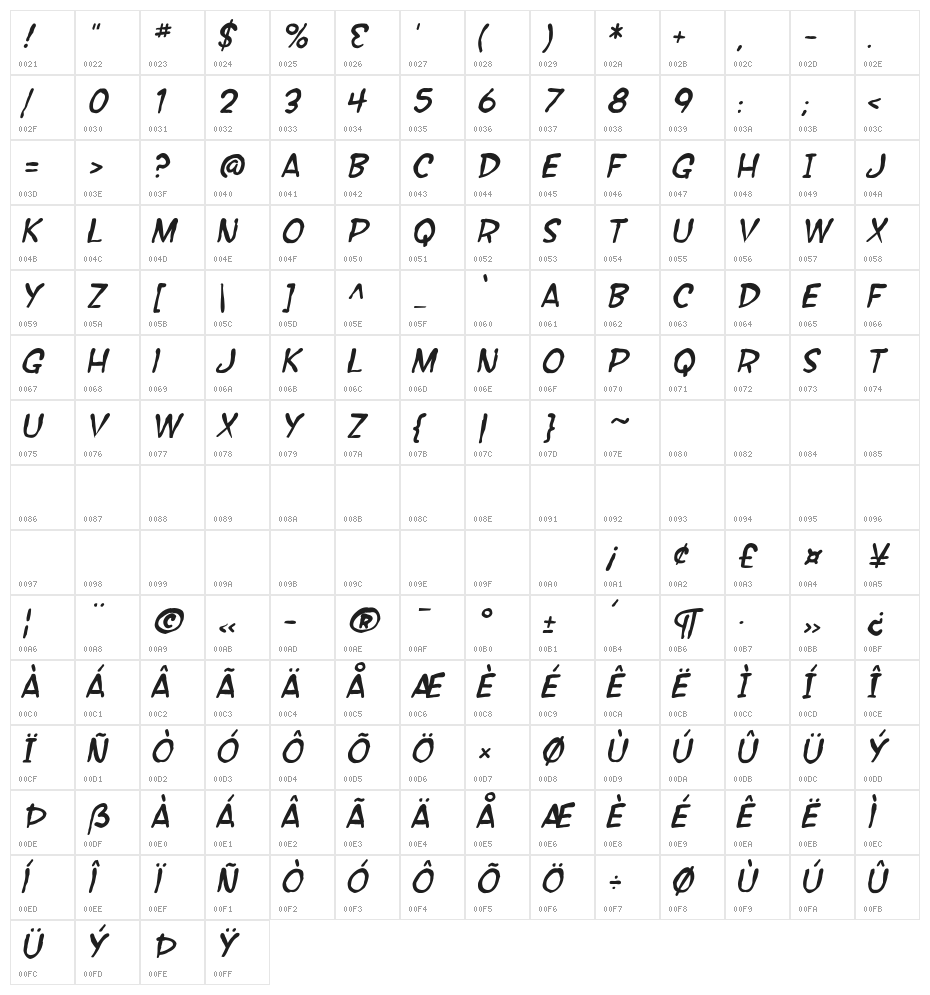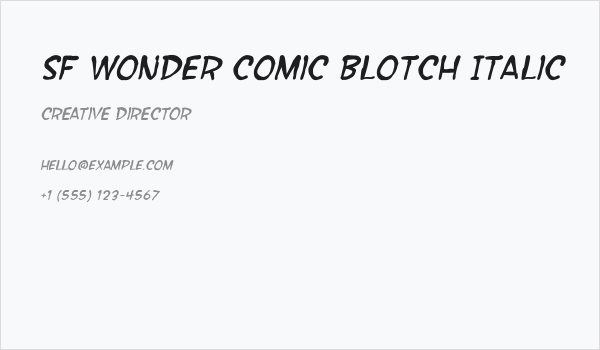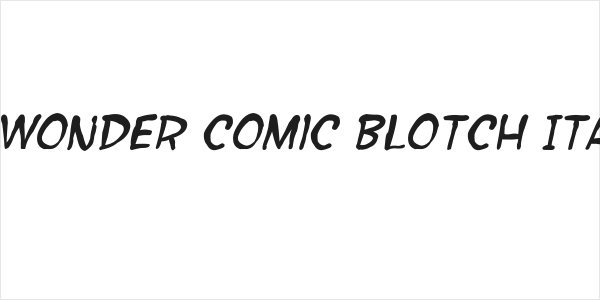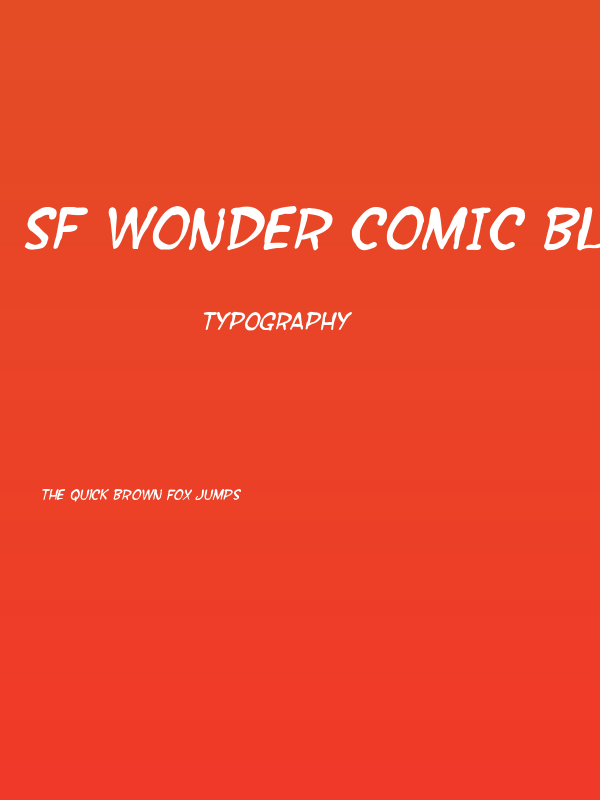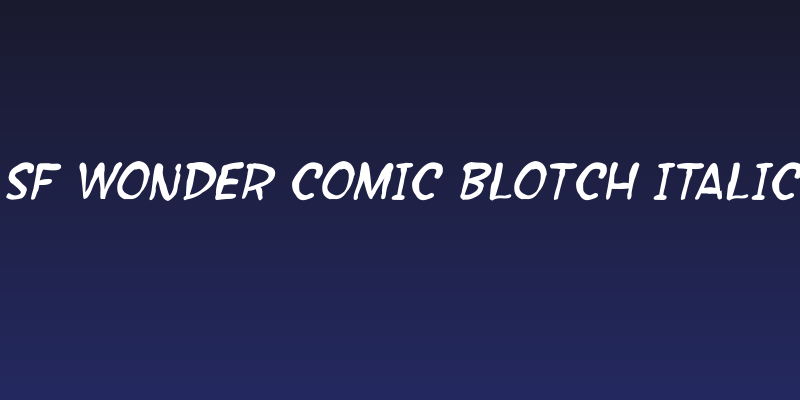
SF Wonder Comic Blotch Italic Font
SF Wonder Comic Blotch Italic Description
This font exhibits a playful and energetic style, characterized by its bold and slightly irregular strokes that give it a hand-drawn appearance. The letters have a dynamic flow, with a slight slant that adds to its casual and informal feel. The uppercase and lowercase letters maintain a consistent style, with rounded edges and varying stroke widths that enhance its comic-like aesthetic. The numerals and special characters are equally expressive, maintaining the overall whimsical theme. This font is perfect for projects that require a fun and lively touch.
| Overall Style | Playful, Comic |
| Proposed Projects | Ideal for comic books, children's books, playful branding, and creative posters. |